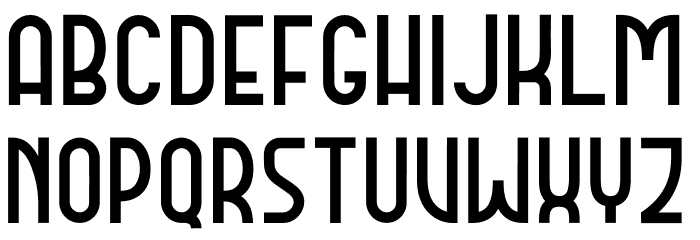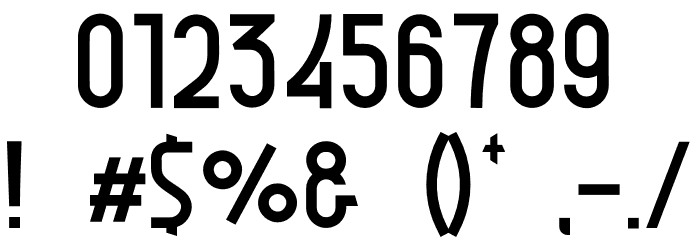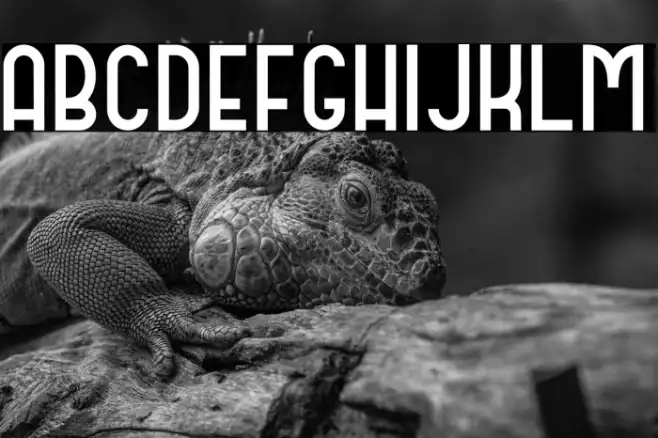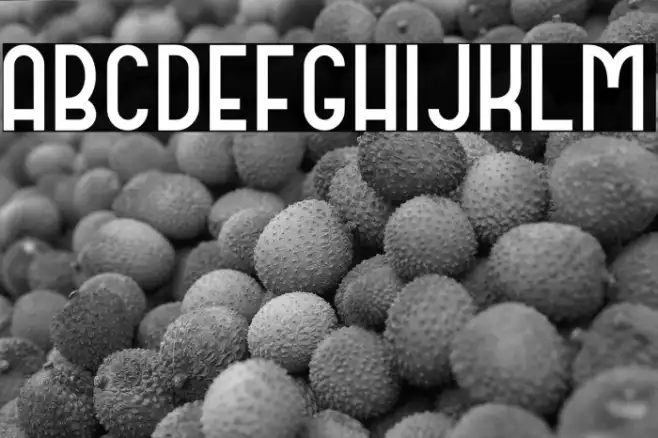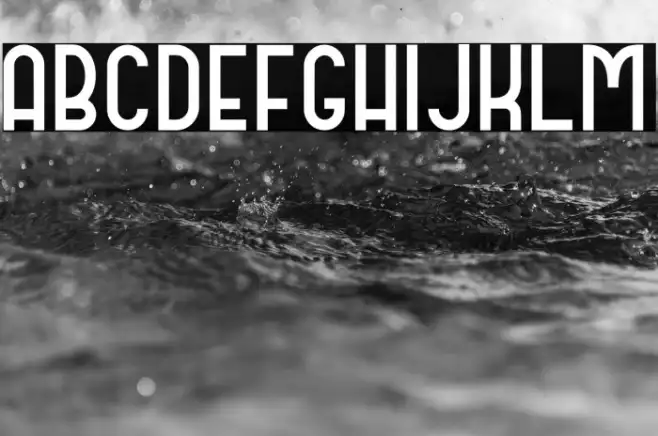
DOMCO 01 Font
This font features a bold and geometric design, characterized by its clean lines and uniform stroke width. The uppercase letters are tall and narrow, giving a modern and structured appearance. The lowercase letters maintain the same geometric style, ensuring consistency throughout the typeface. Numbers are clear and easily readable, with a similar height to the uppercase letters, enhancing the font's cohesive look. Special characters are designed with the same attention to detail, making them fit seamlessly with the rest of the characters. The overall style is both contemporary and versatile, suitable for a variety of design applications.
A bold, geometric font with clean lines and a modern appearance.
- Font: DOMCO 01
- Proposed Projects: Ideal for branding, posters, headlines, and digital media where a strong, modern presence is desired.